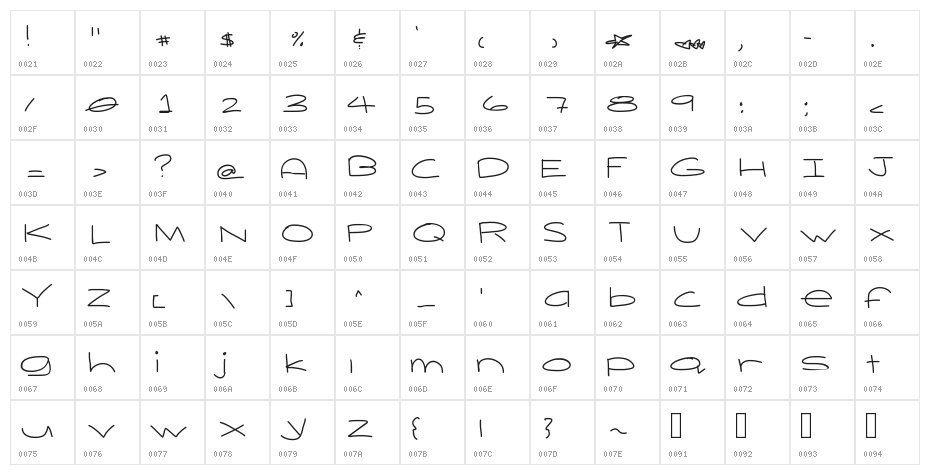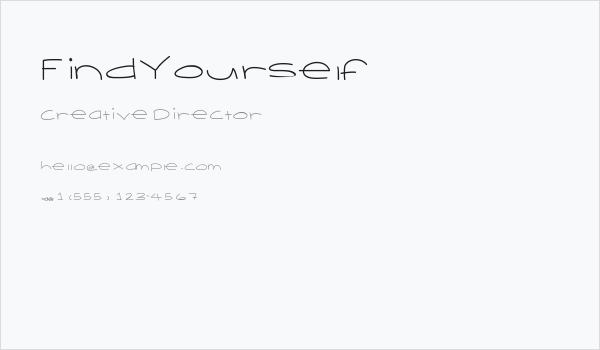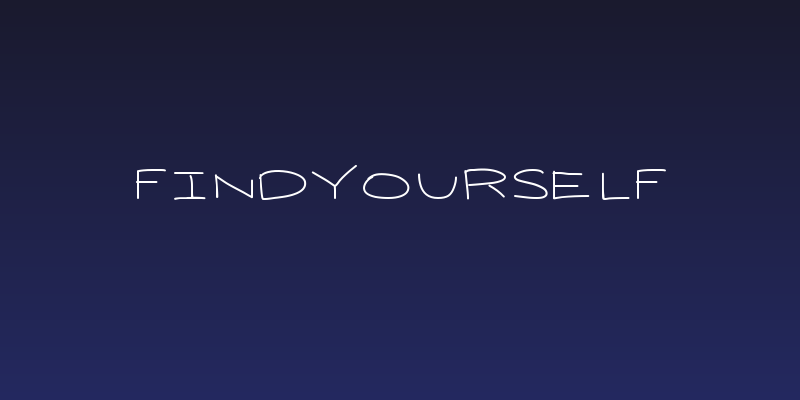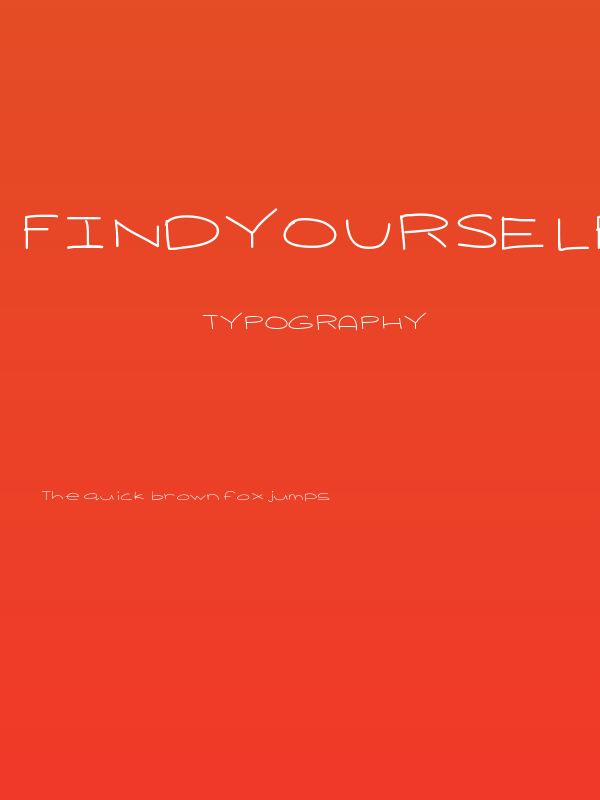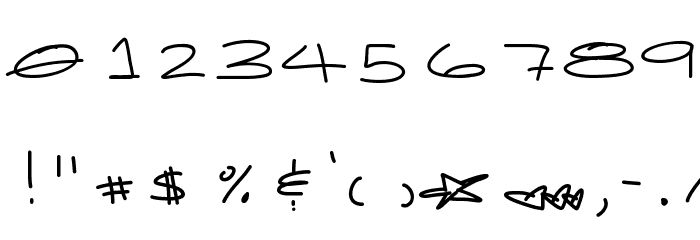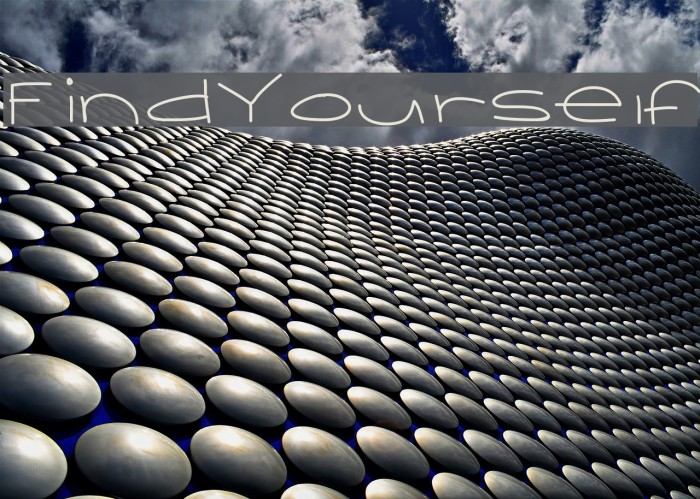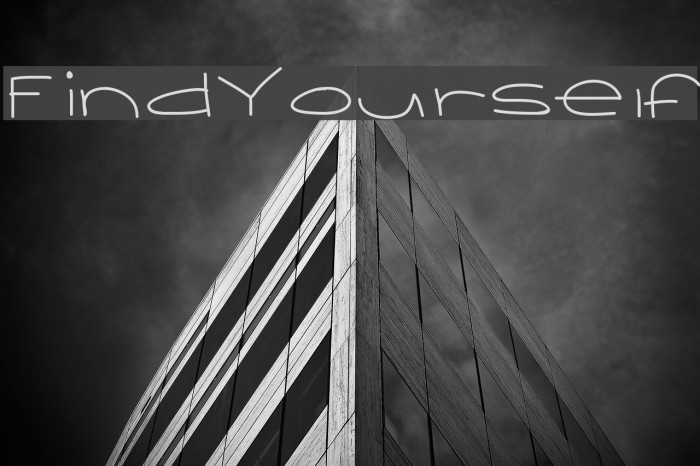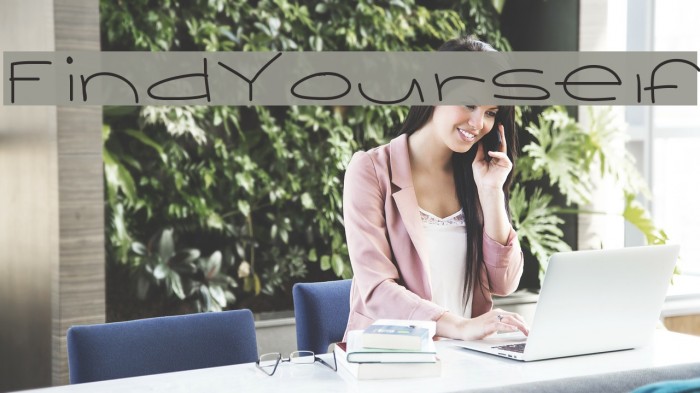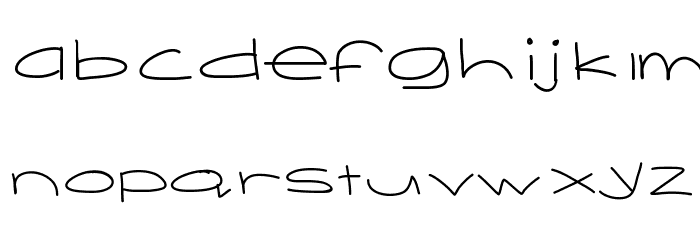
FindYourself Font
FindYourself Description
This playful and whimsical font features a handwritten style with irregular, flowing lines that give it a casual and friendly appearance. The characters are slightly tilted and vary in size, adding to the informal and dynamic feel. The uppercase and lowercase letters maintain a consistent style, with rounded edges and a smooth, flowing script. Numbers and special characters are designed with the same playful touch, making the font versatile for creative projects. Its unique style is perfect for adding a personal touch to any design.
| Use Case | Logos, Headlines, Informal Text |
| Proposed Projects | Ideal for greeting cards, children's books, playful branding, and personal projects. |